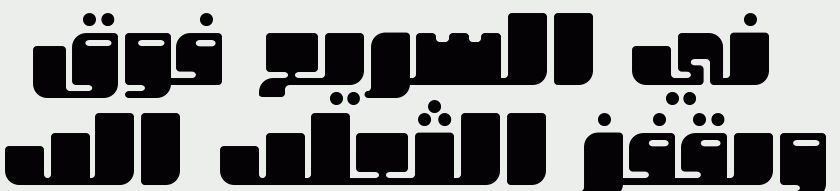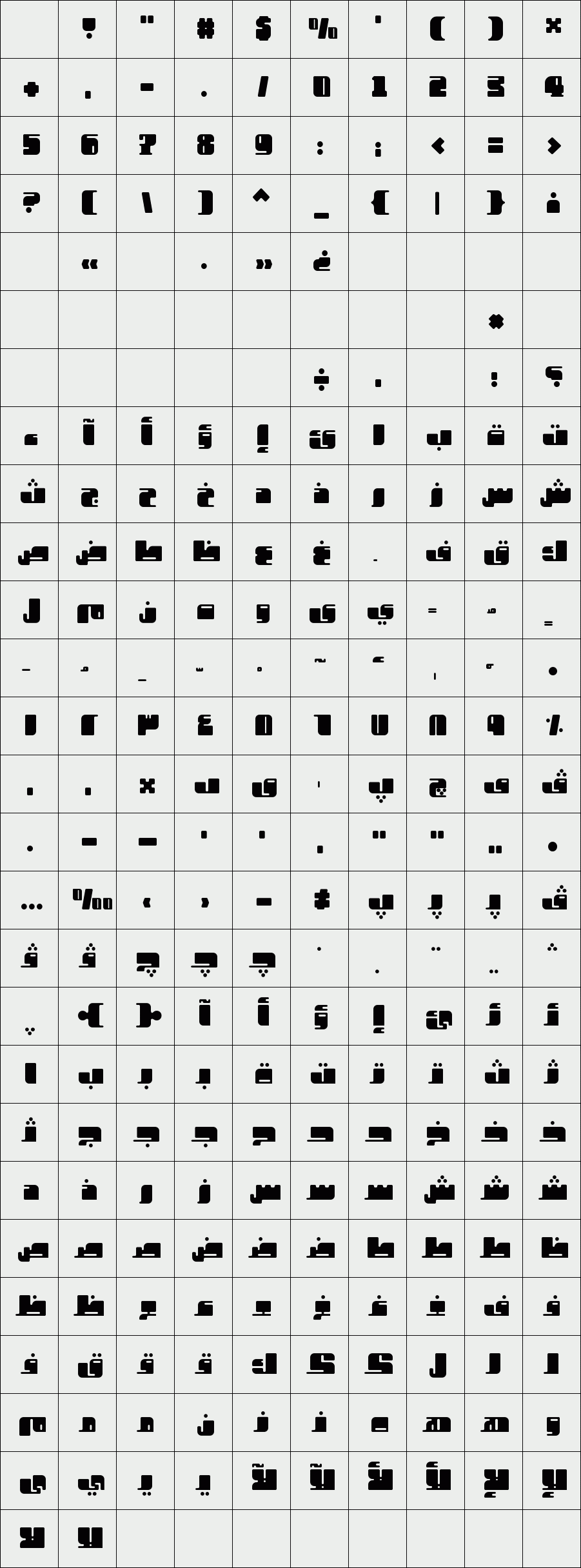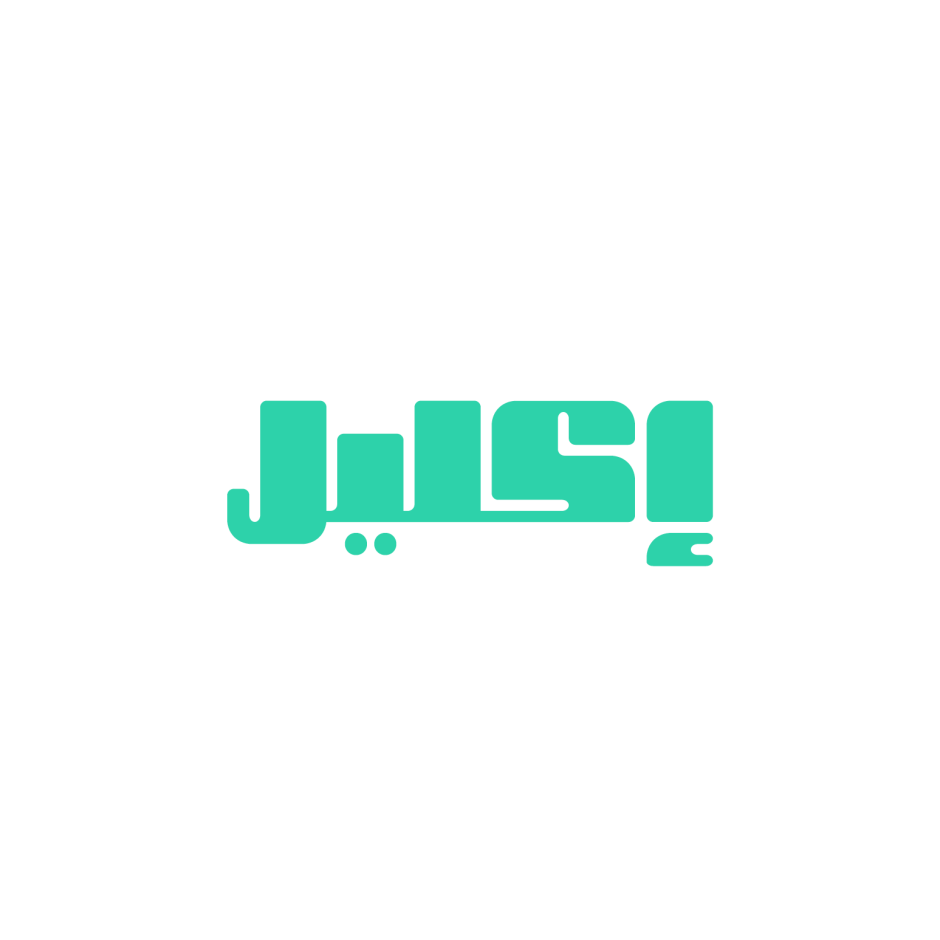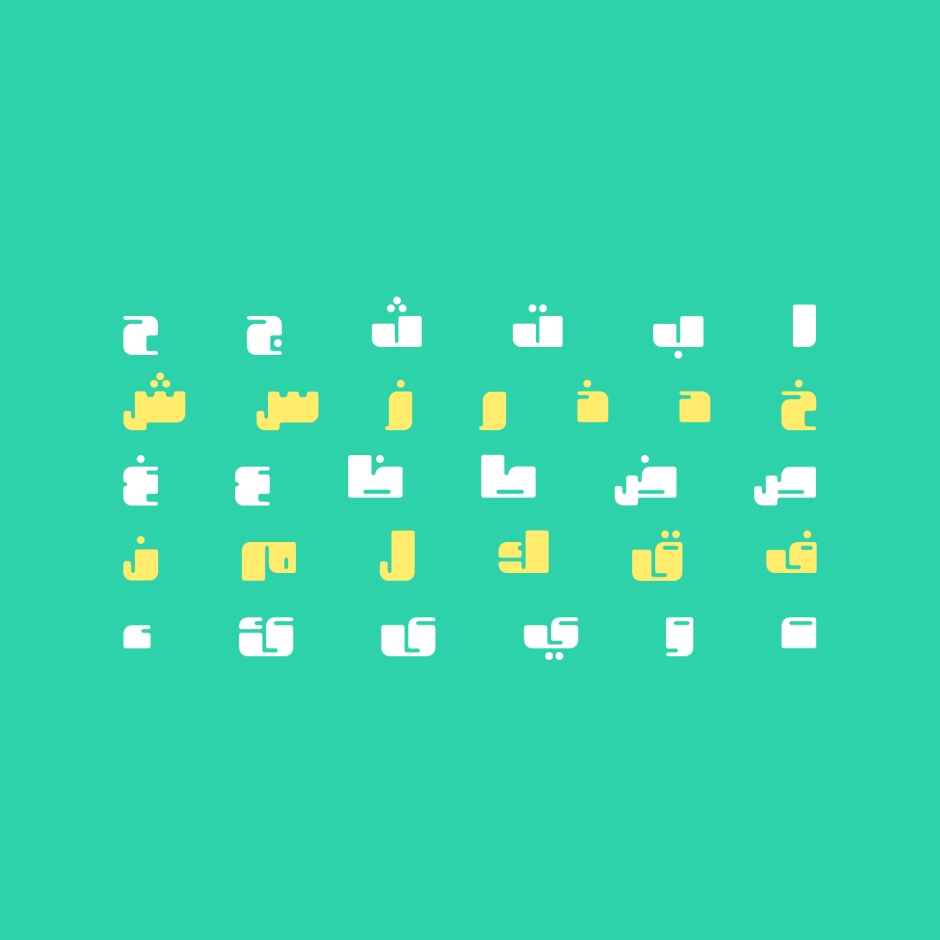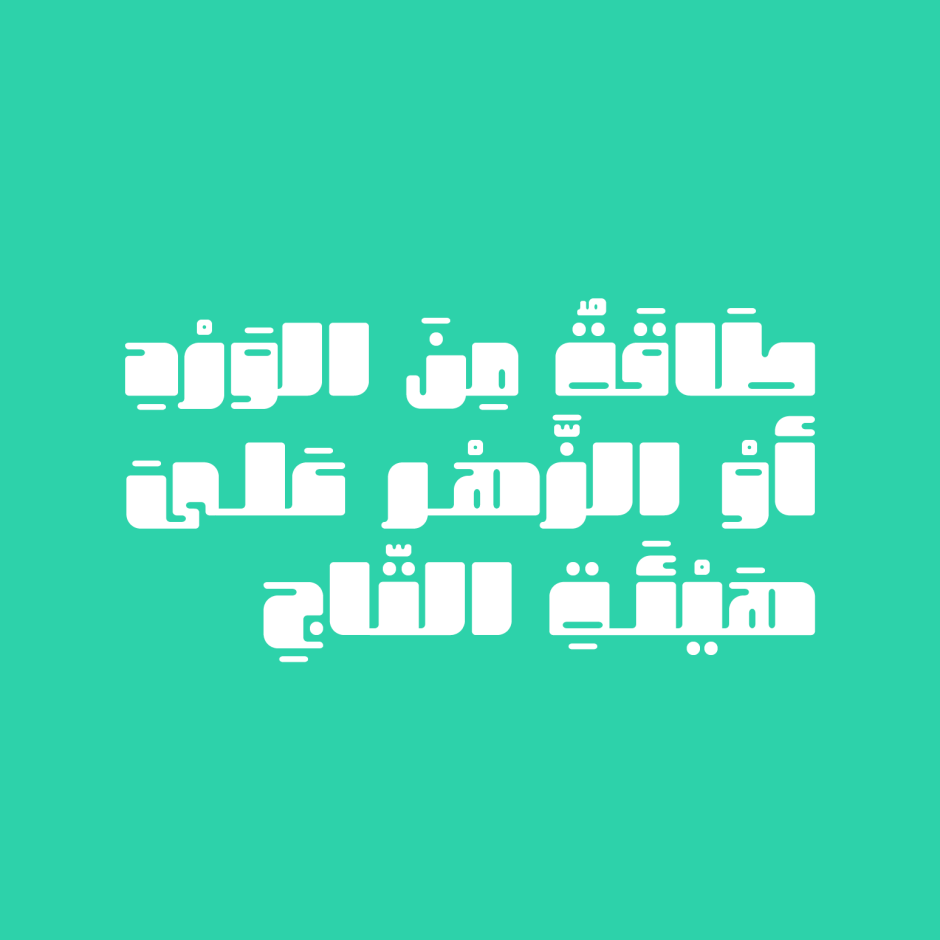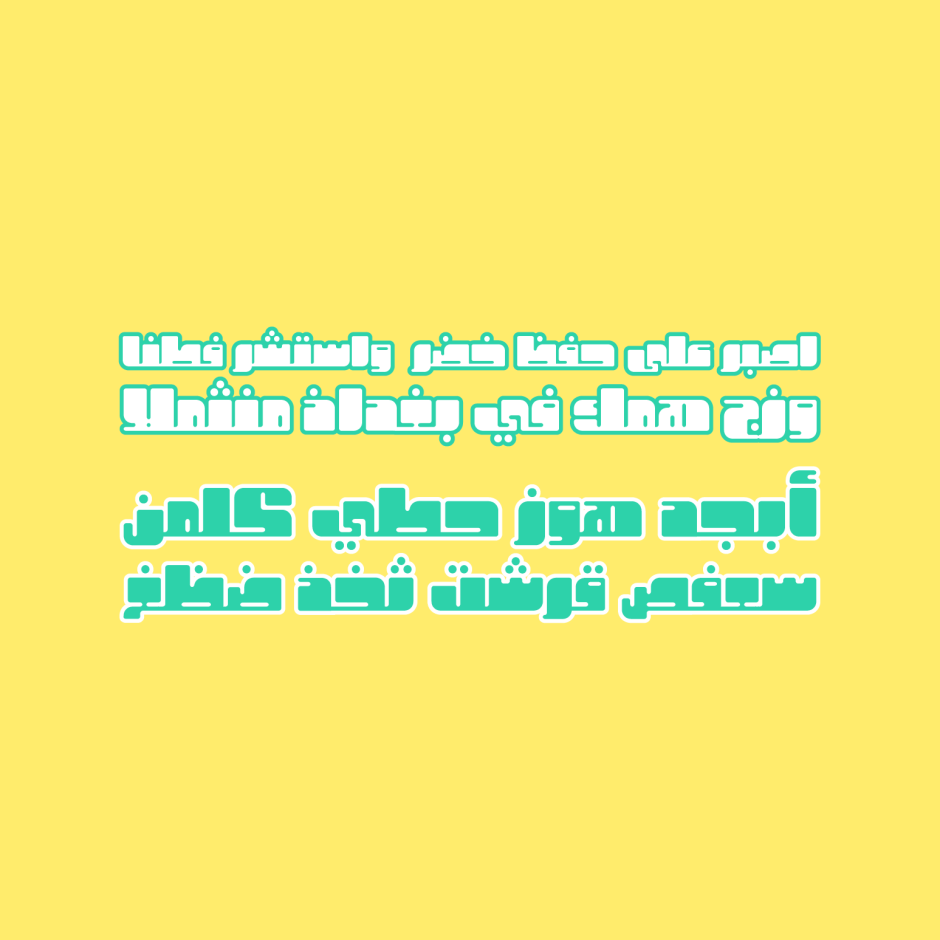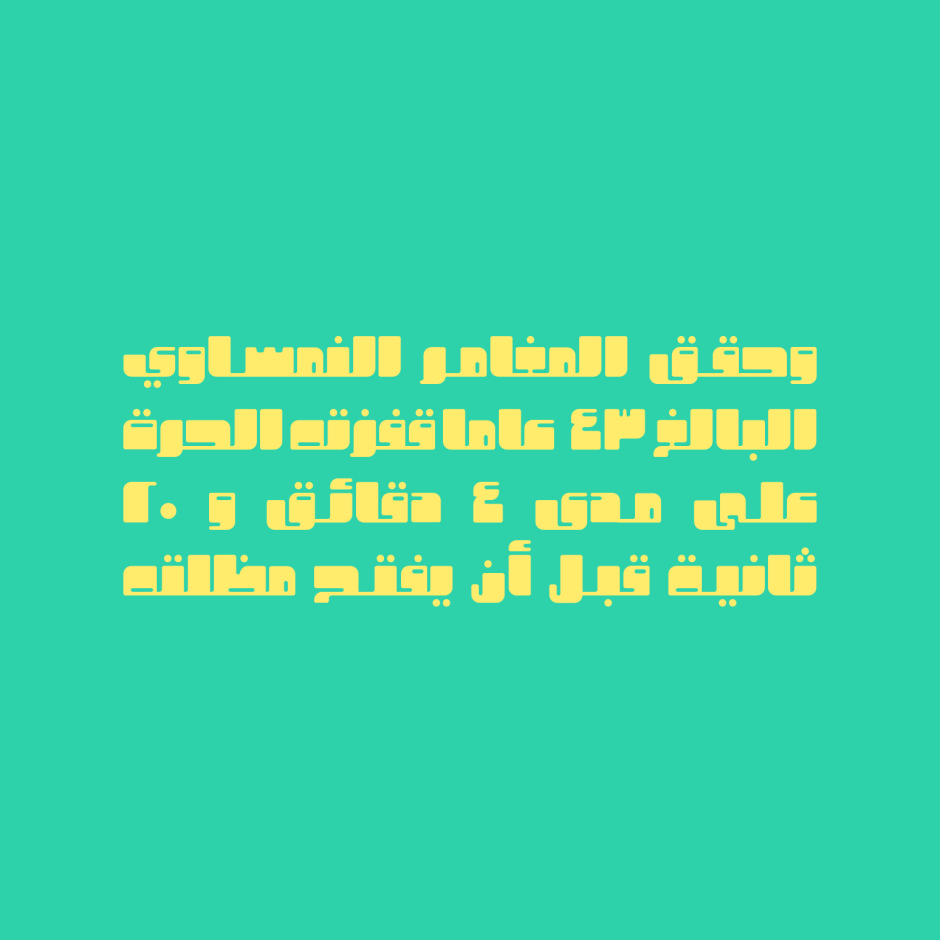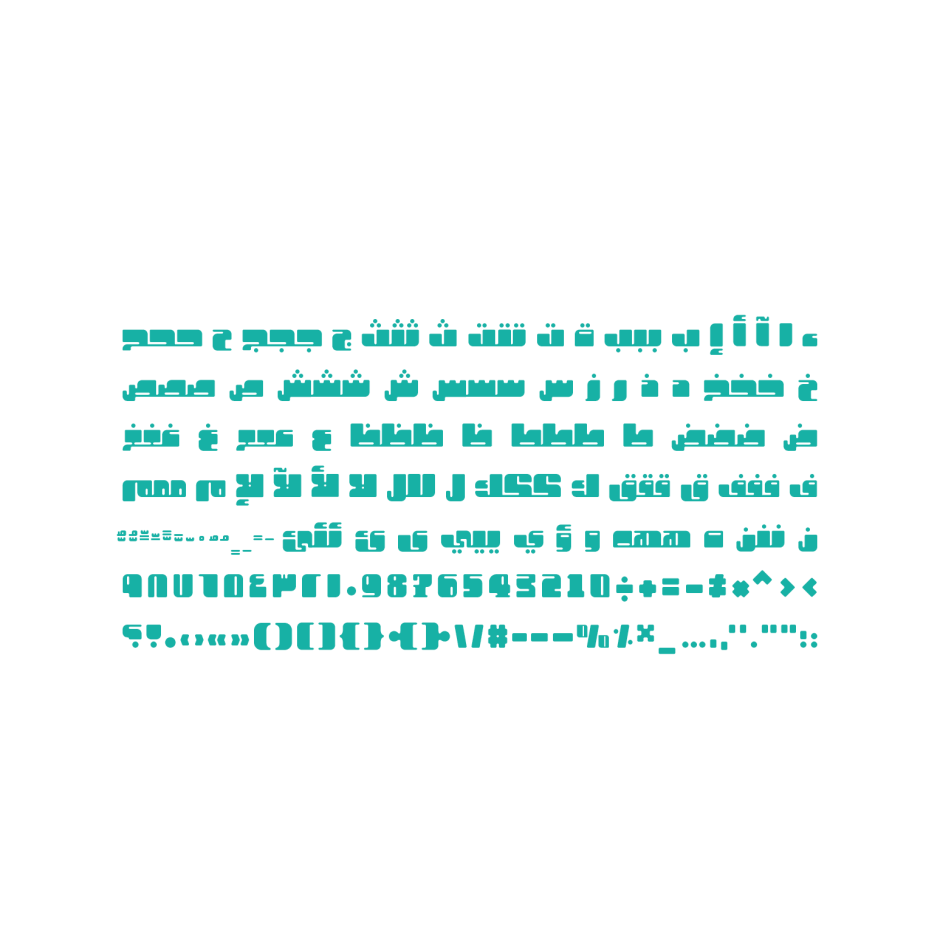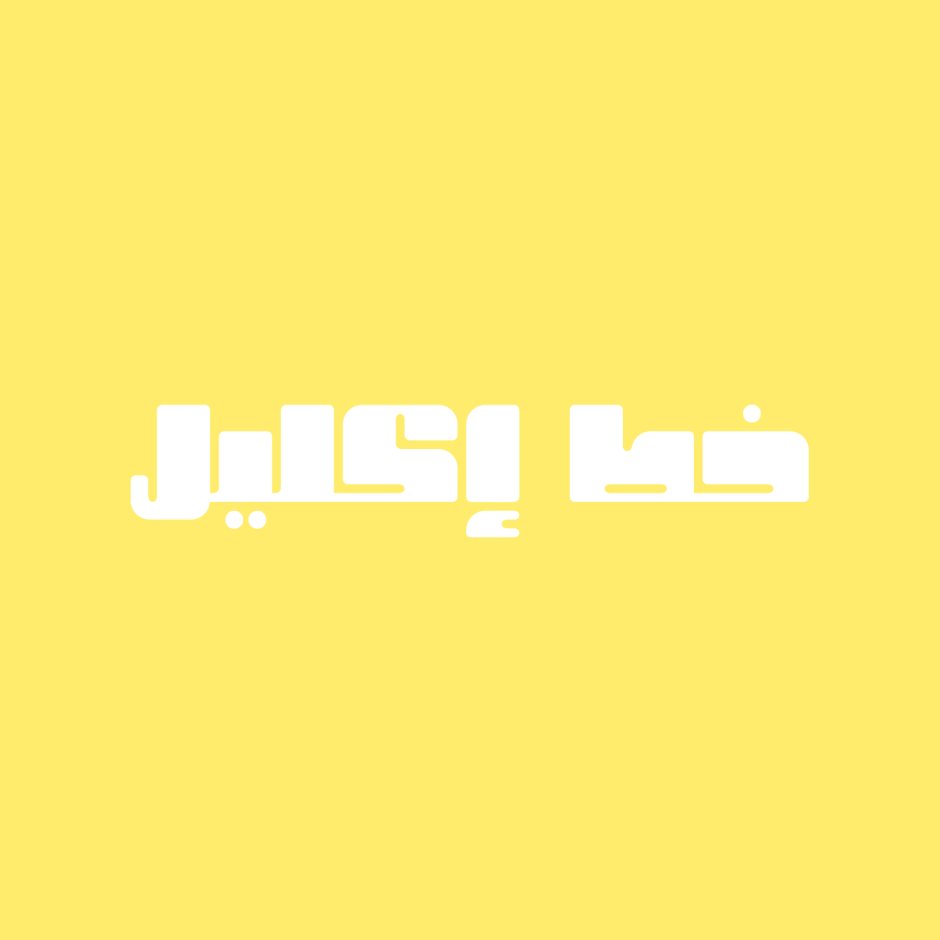
Ekleel
Ekleel is an Arabic display font that combines casual and friendly letterform design. The font suits a various range of applications including web design, branding, advertising and publications. Ekleel supports Windows, Mac OS and mobile applications.